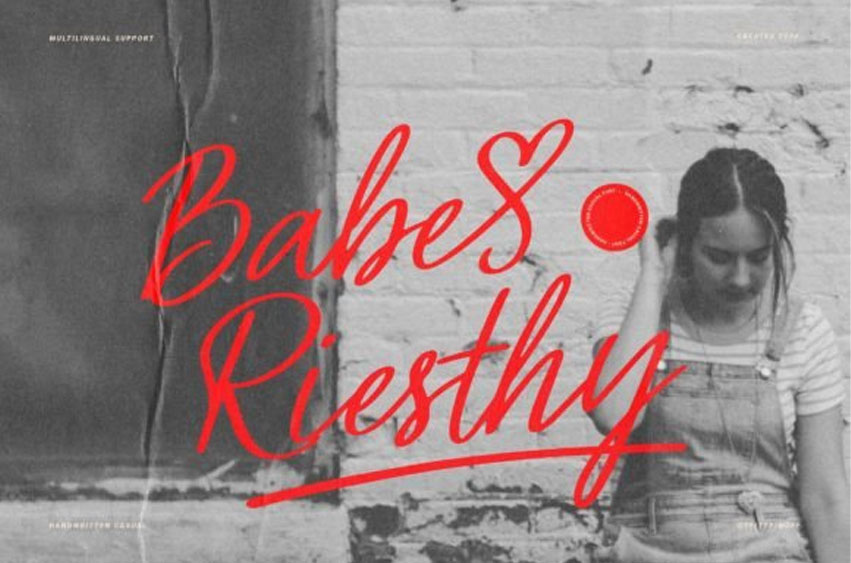
Babe Riesthy Font
Babe Riesthy Font is a casual and playful handwritten font. It has a friendly and relaxed style, making it great for personal projects, greeting cards, or informal invitations.
The letters have a natural, free-flowing look, giving your text a warm and approachable feel.